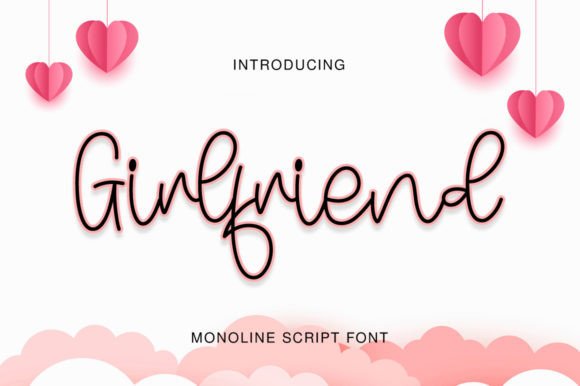
Girlfriend Font: The Perfect Choice for Romantic and Personalized Designs
Are you a designer or crafter looking for a font that can add a touch of elegance and romance to your designs? Look no further than the Girlfriend Font. This beautiful, handwritten font is perfect for creating wedding invitations, cards, and other designs that require a personal and loving touch.
What is Girlfriend Font?
Girlfriend Font is an elegant handwritten font that is dainty and joyful. Its unique and charming style makes it ideal for adding a romantic touch to any design. Whether you’re creating wedding invitations, Valentine’s Day cards, or simply want to add a personal touch to your designs, Girlfriend Font is the perfect choice.
Characteristics of Girlfriend Font
Girlfriend Font has several characteristics that make it stand out from other fonts. Some of its key features include:
- Elegant Handwritten Style: Girlfriend Font has a beautiful, handwritten style that is elegant and refined.
- Dainty and Joyful: The font has a dainty and joyful feel, making it perfect for creating romantic and personalized designs.
- Romantic and Personalized Touch: Girlfriend Font is designed to add a romantic and personalized touch to your designs, making it perfect for wedding invitations, cards, and other special occasions.
Uses of Girlfriend Font
Girlfriend Font is a versatile font that can be used for a variety of design projects. Some of the most popular uses for this font include:
- Wedding Invitations: Girlfriend Font is perfect for creating beautiful and elegant wedding invitations that set the tone for a romantic and memorable day.
- Cards and Stationery: The font is also great for creating cards and stationery that require a personal and loving touch.
- Designs that Require a Romantic Touch: Girlfriend Font can be used for any design project that requires a romantic and personalized touch, such as Valentine’s Day designs, anniversary designs, and more.
Why Choose Girlfriend Font?
There are many fonts available that can add a touch of elegance and romance to your designs. So, why choose Girlfriend Font? Here are a few reasons:
- Unique and Charming Style: Girlfriend Font has a unique and charming style that sets it apart from other fonts.
- Elegant and Refined: The font is elegant and refined, making it perfect for creating high-end designs.
- Easy to Read: Girlfriend Font is easy to read, making it perfect for designs that require a lot of text.
Tips for Using Girlfriend Font
Here are a few tips for using Girlfriend Font in your designs:
- Use it for Headings and Titles: Girlfriend Font is perfect for headings and titles, where you want to make a statement and add a touch of elegance.
- Pair it with Other Fonts: The font can be paired with other fonts to create a unique and interesting design.
| Font Name | Girlfriend Font |
| Author | Nirmala Creative |
Girlfriend Font is a beautiful and elegant handwritten font that is perfect for adding a romantic and personalized touch to your designs. With its unique and charming style, elegant and refined feel, and ease of use, it’s the perfect choice for designers and crafters looking to create stunning designs. Whether you’re creating wedding invitations, cards, or other designs that require a romantic touch, Girlfriend Font is the perfect choice.